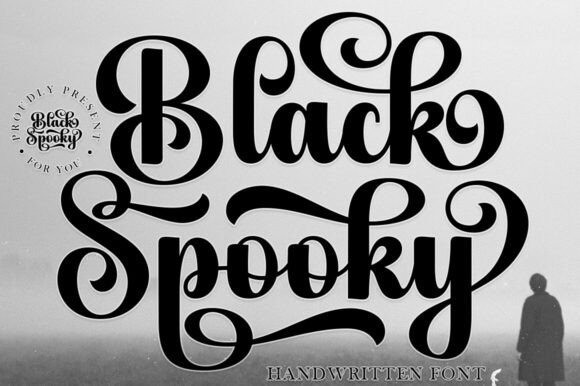
Black Spooky Font
Black Spooky Font – This font has unique character variations and an elegant look that captivates at first sight. Black Spooky is delicate and feminine, offering a mesmerizing readability thanks to its gracefully connected letters. With its timeless appeal, Black Spooky is an ideal choice for a variety of formal purposes. From restaurant menus to fashion labels, invitations to logos, this font elevates any design.
Add a touch of stylish charm to your stationery, novels, magazines and books. Whether it’s greeting cards, wedding invitations, packaging designs or promotional materials, Black Spooky brings an unforgettable elegance.